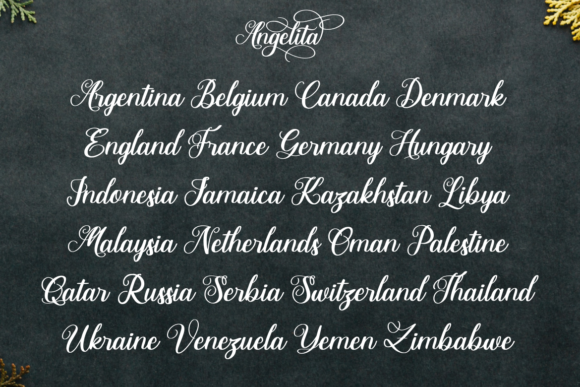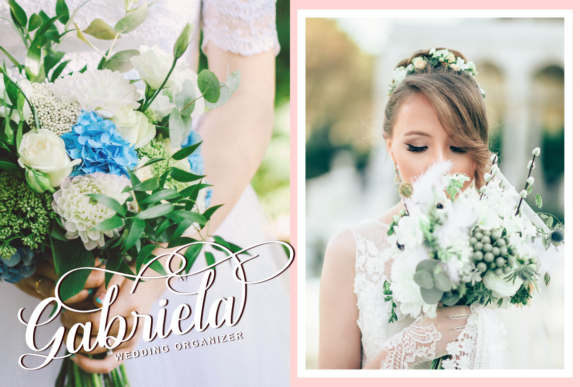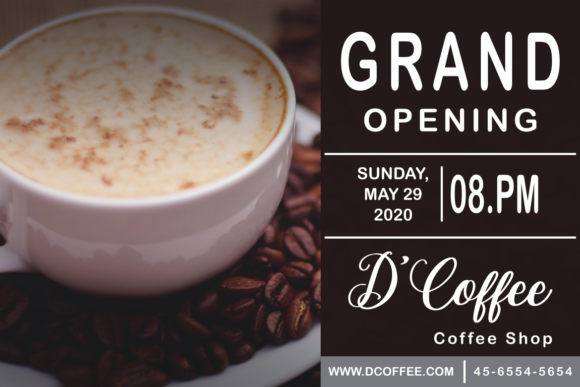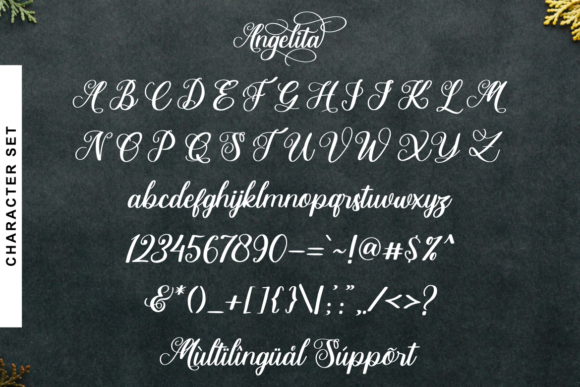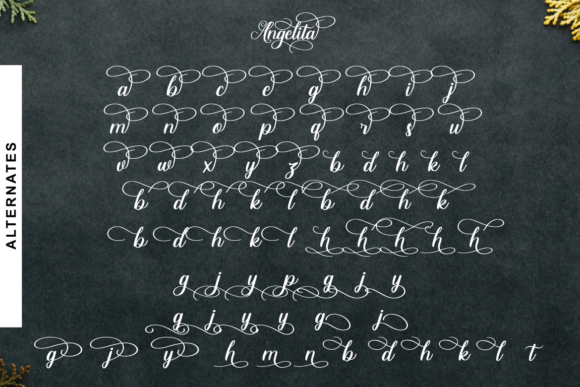
Angelita Font
About Angelita Font
Angelita is a modern calligraphy font. It’s got classic look and a dancing baseline and is perfect for adding an elegant touch to your designs.